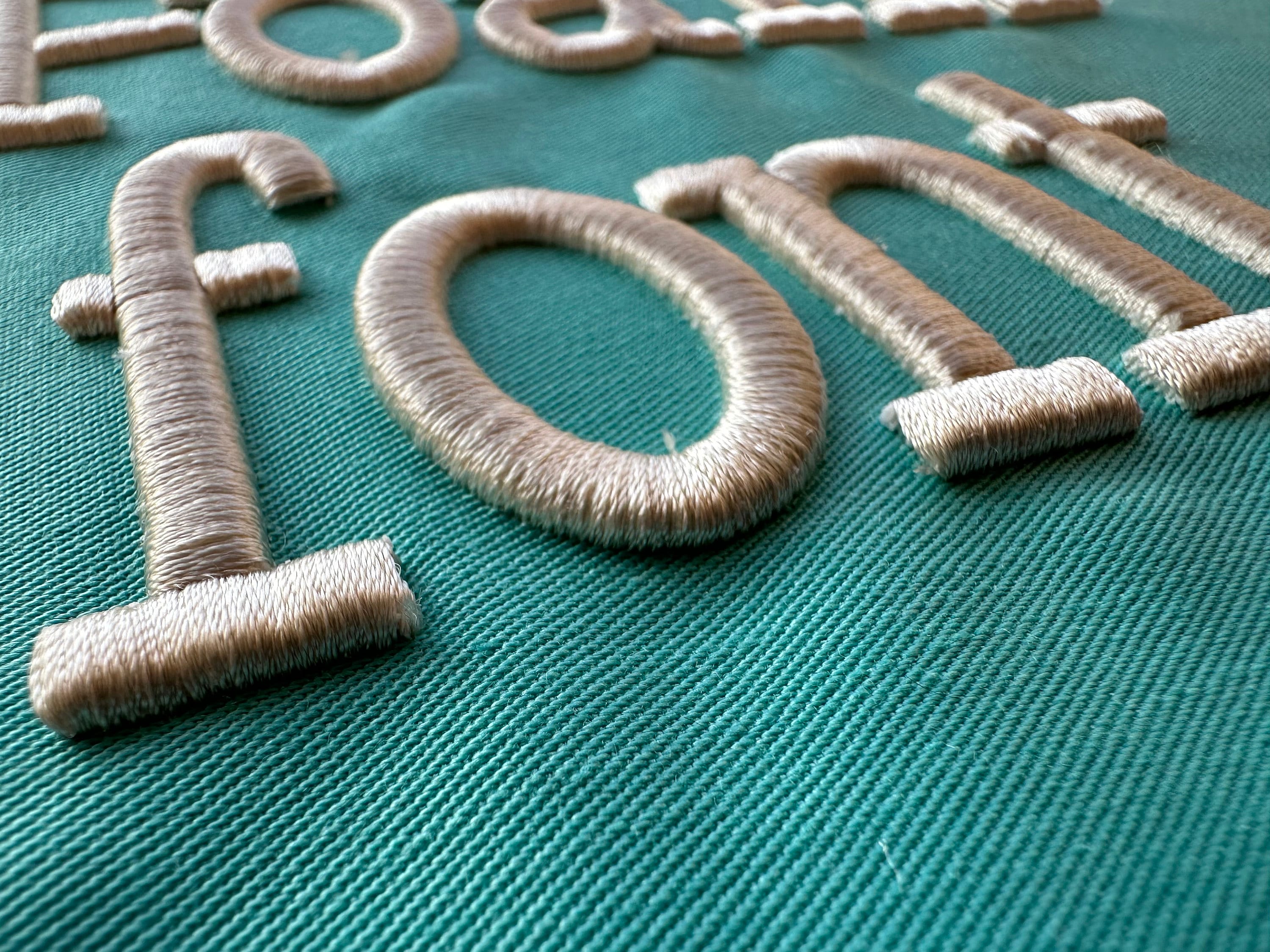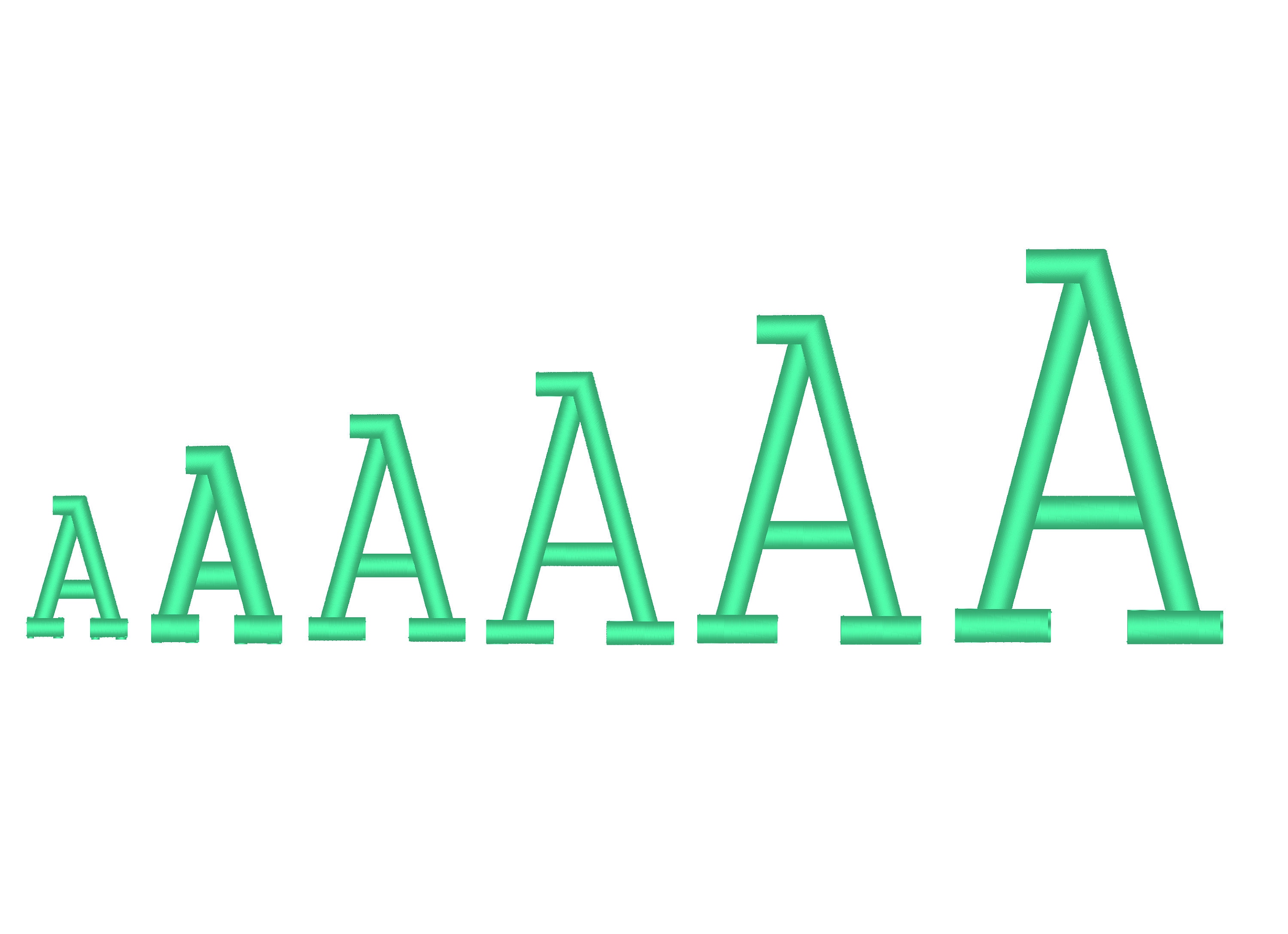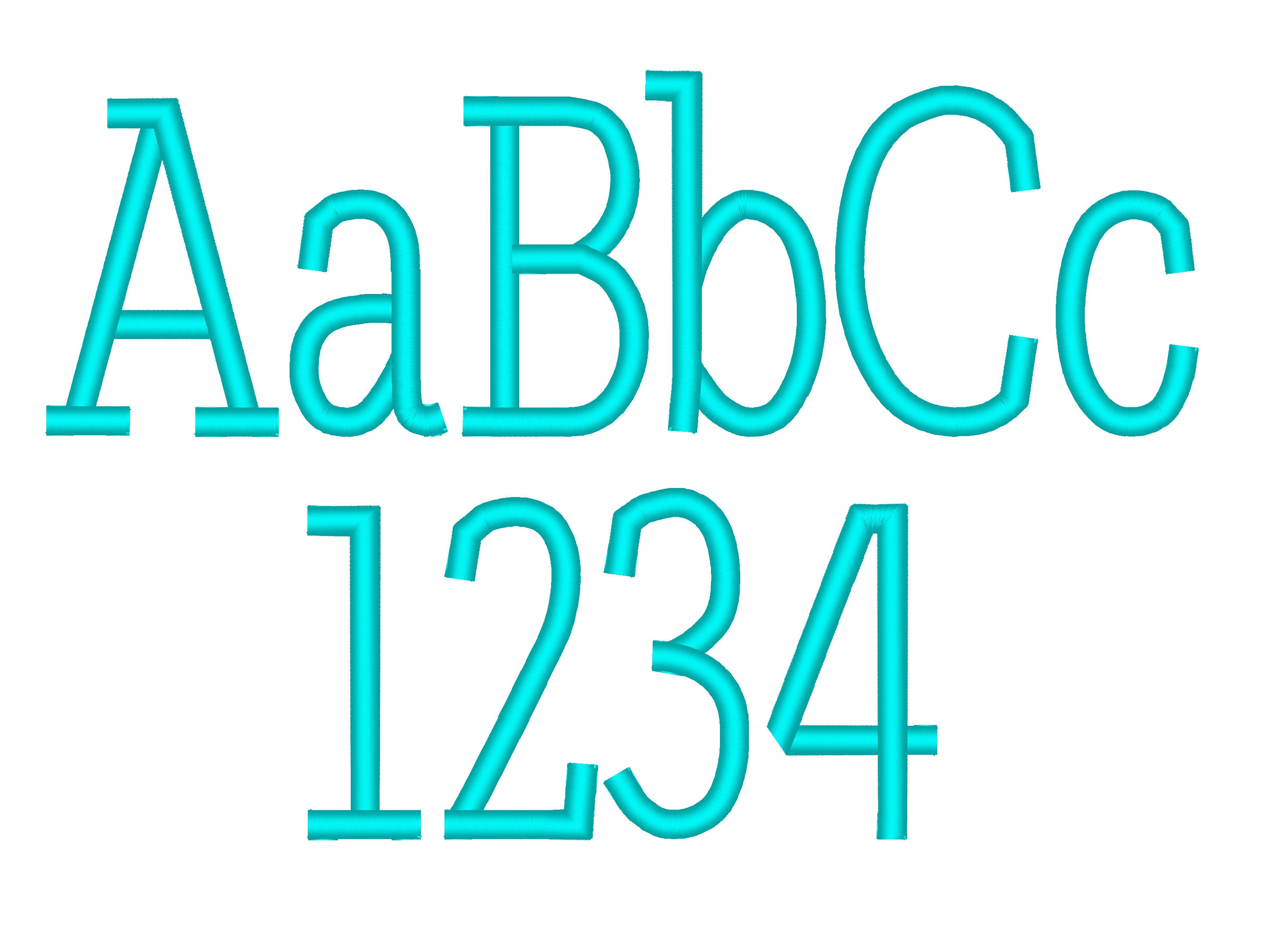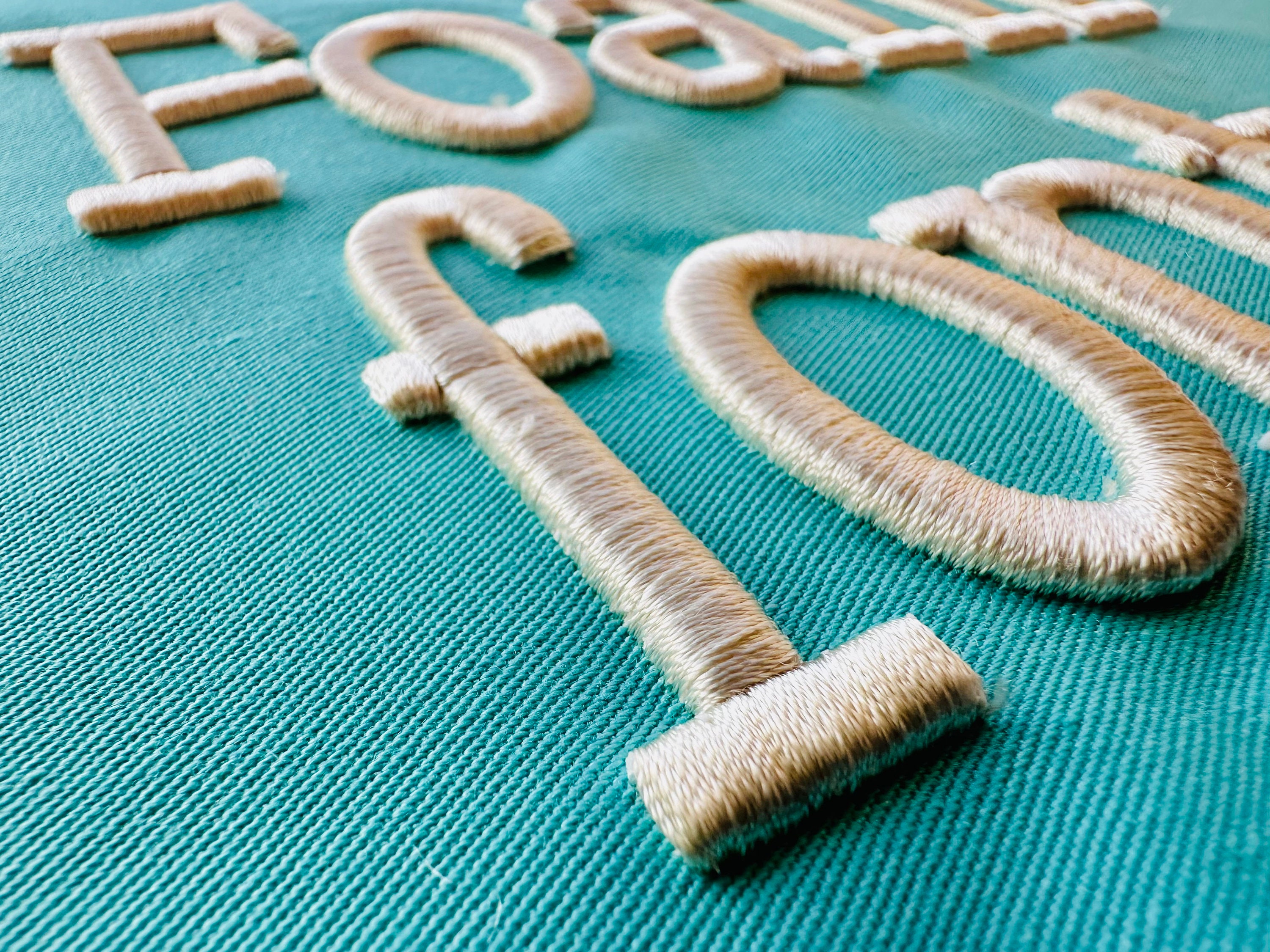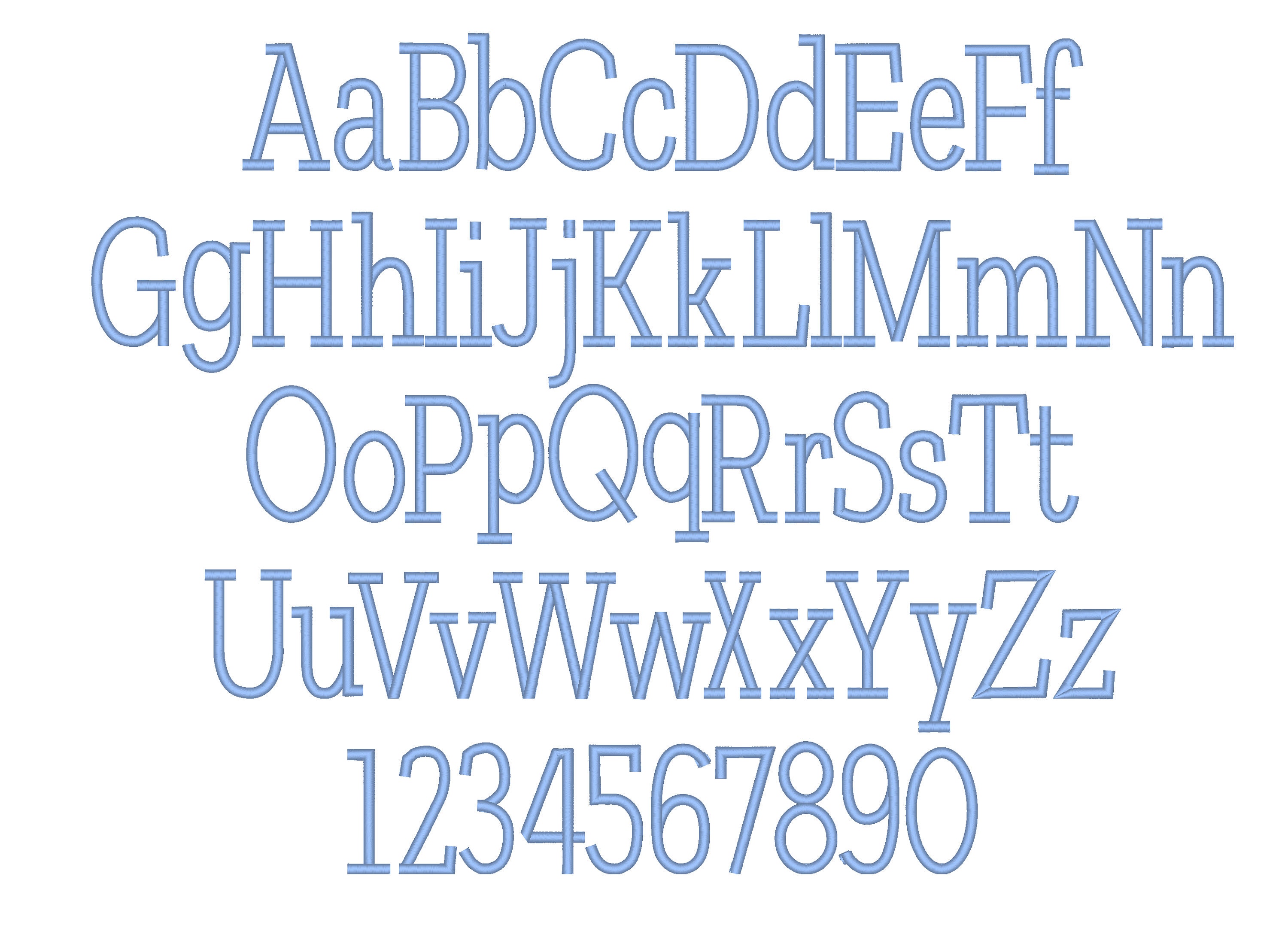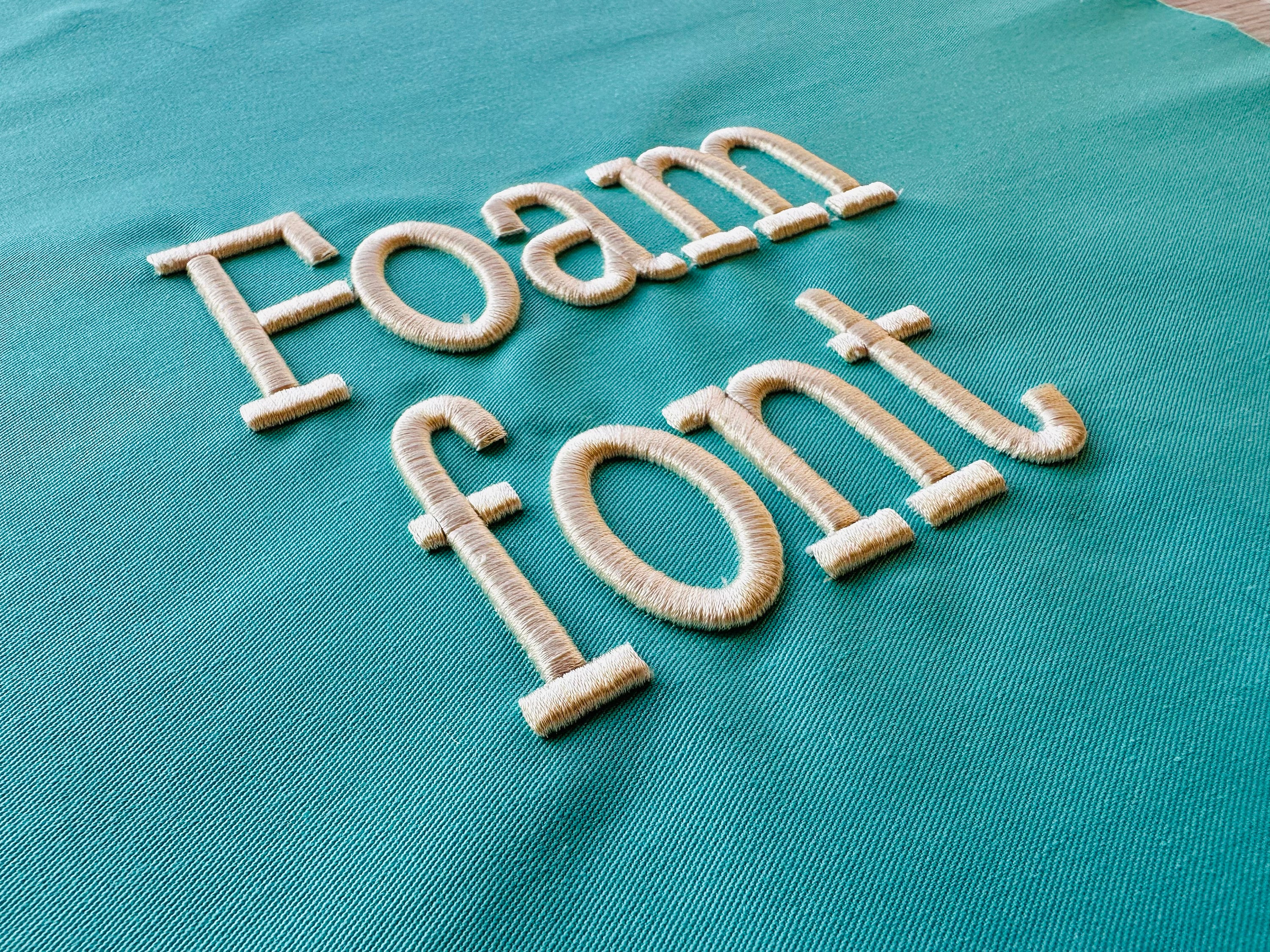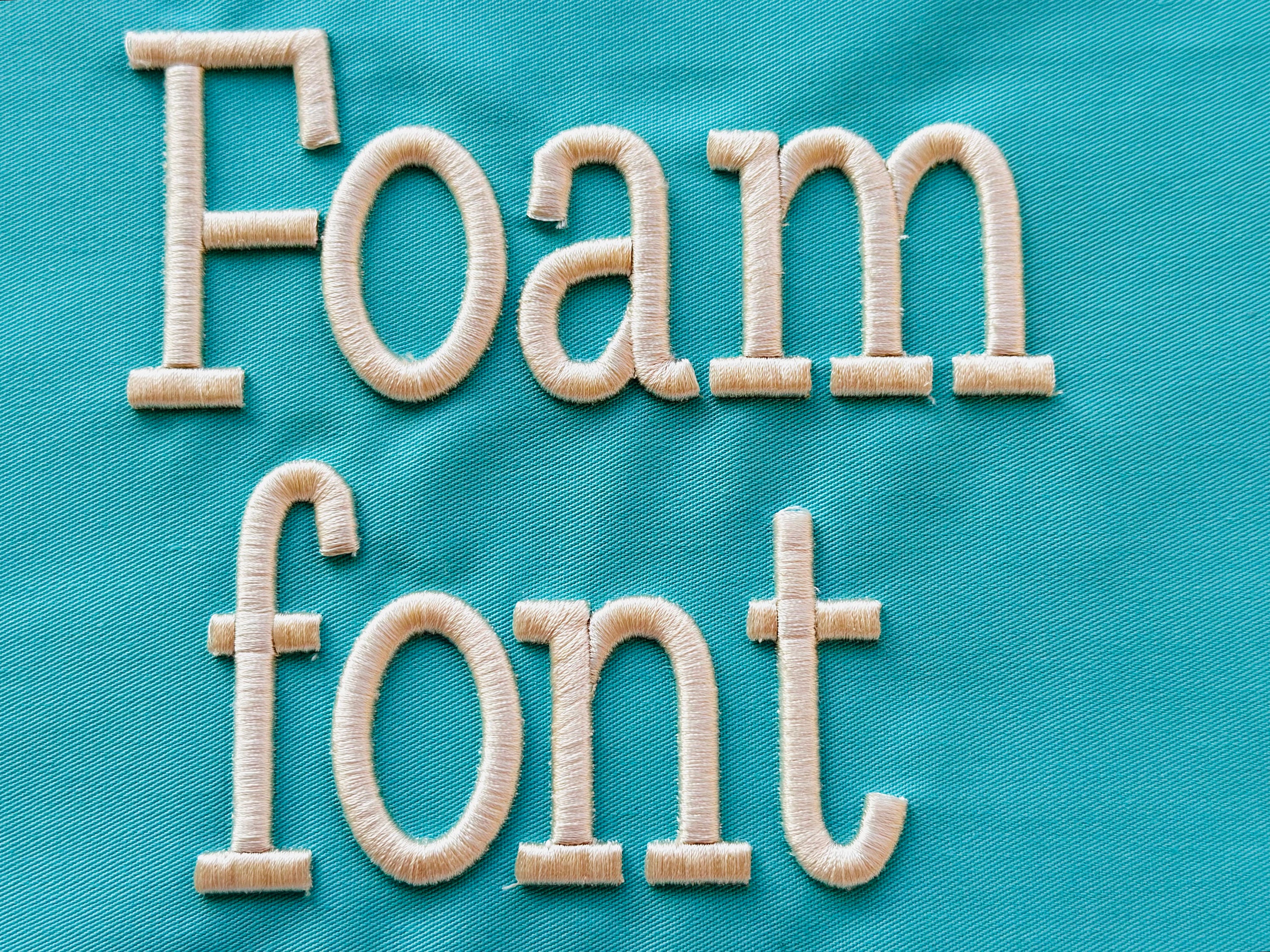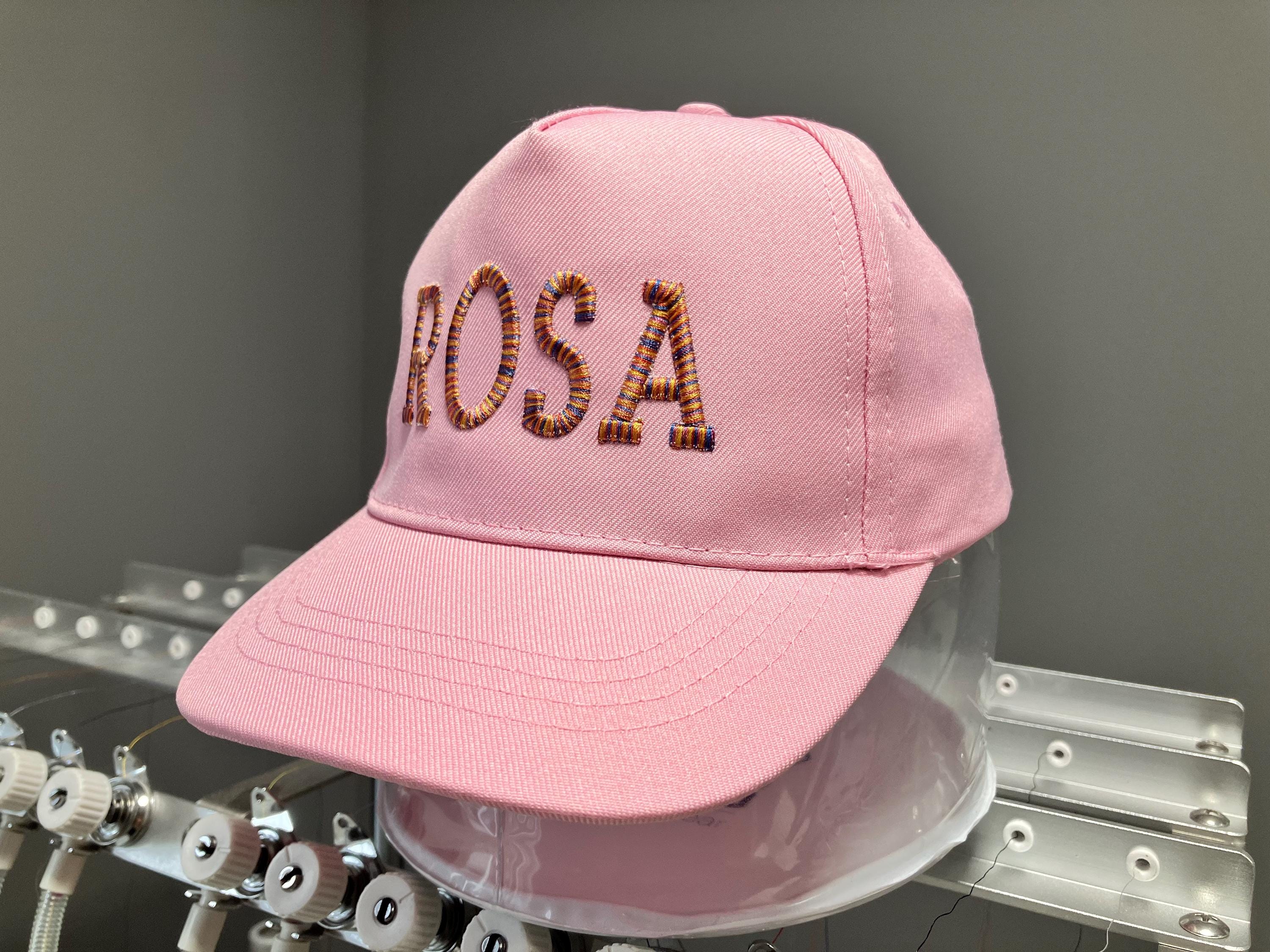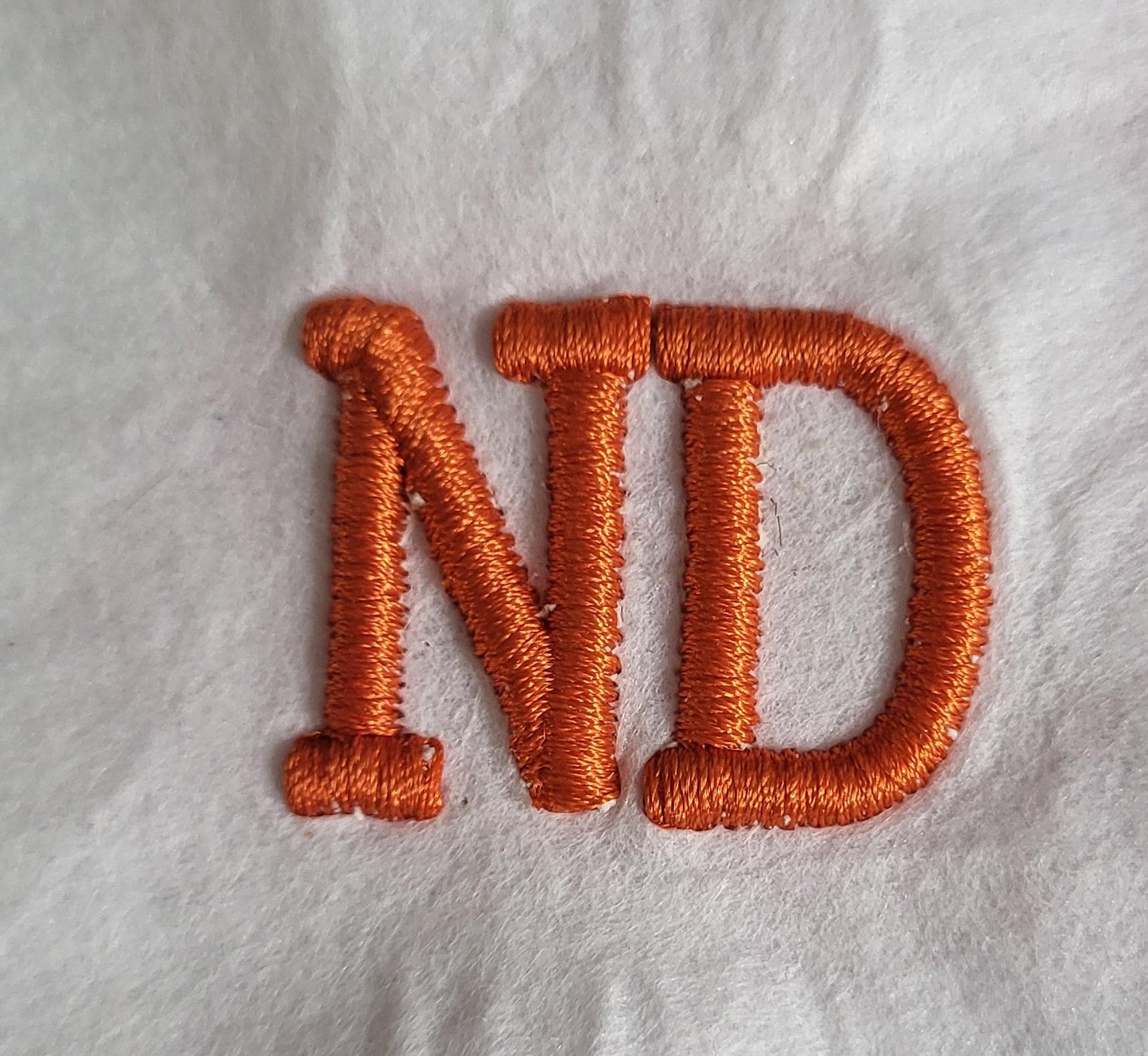
Puff Embroidery font file machine embroidery designs 3D raised Puffy Foam alphabet monogram block font 1.3, 1.8, 2, 2.5, 3, 3.7 inches, BX
Whole alphabet A-Z uppercase and lowercase letters, and numbers 0-9.